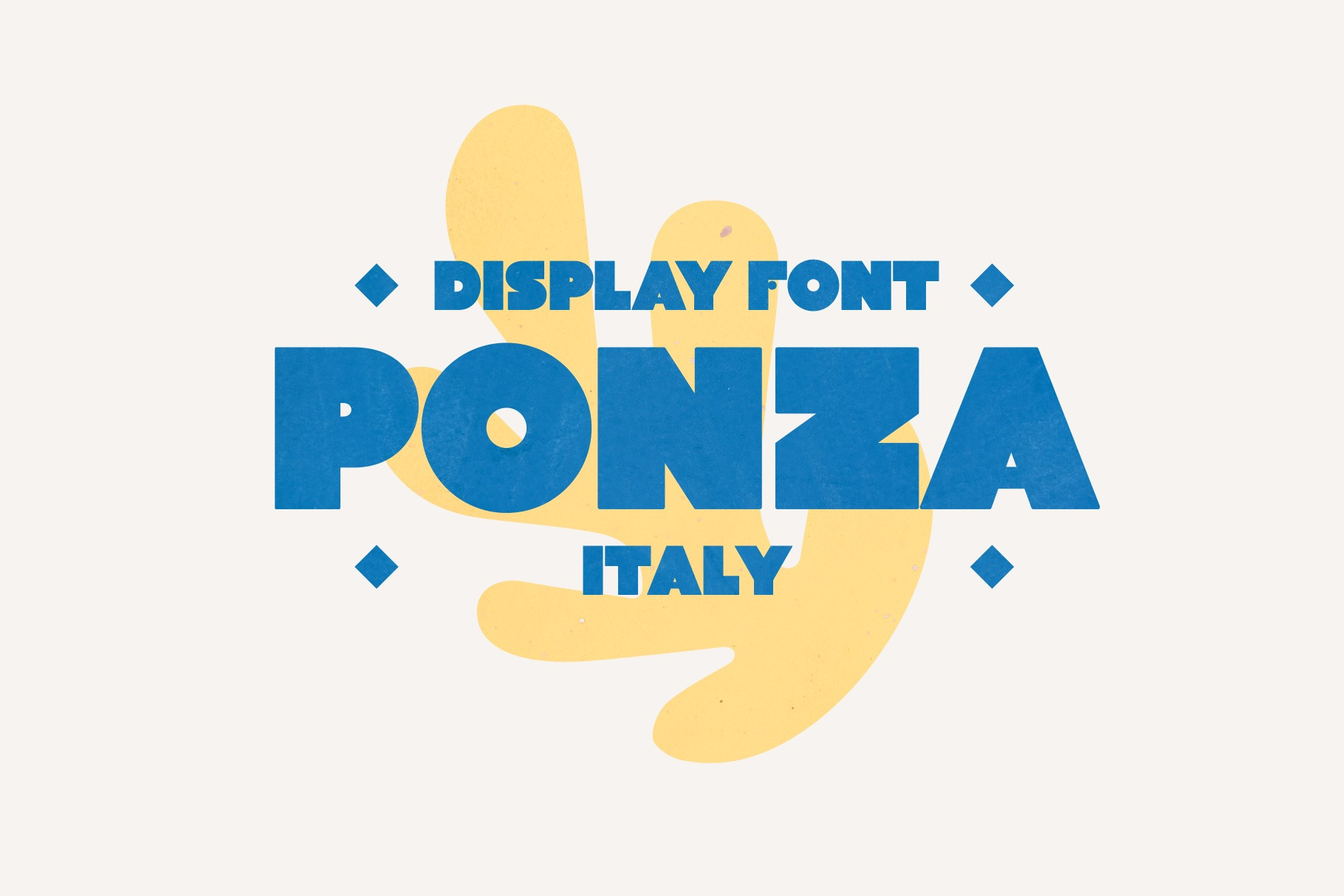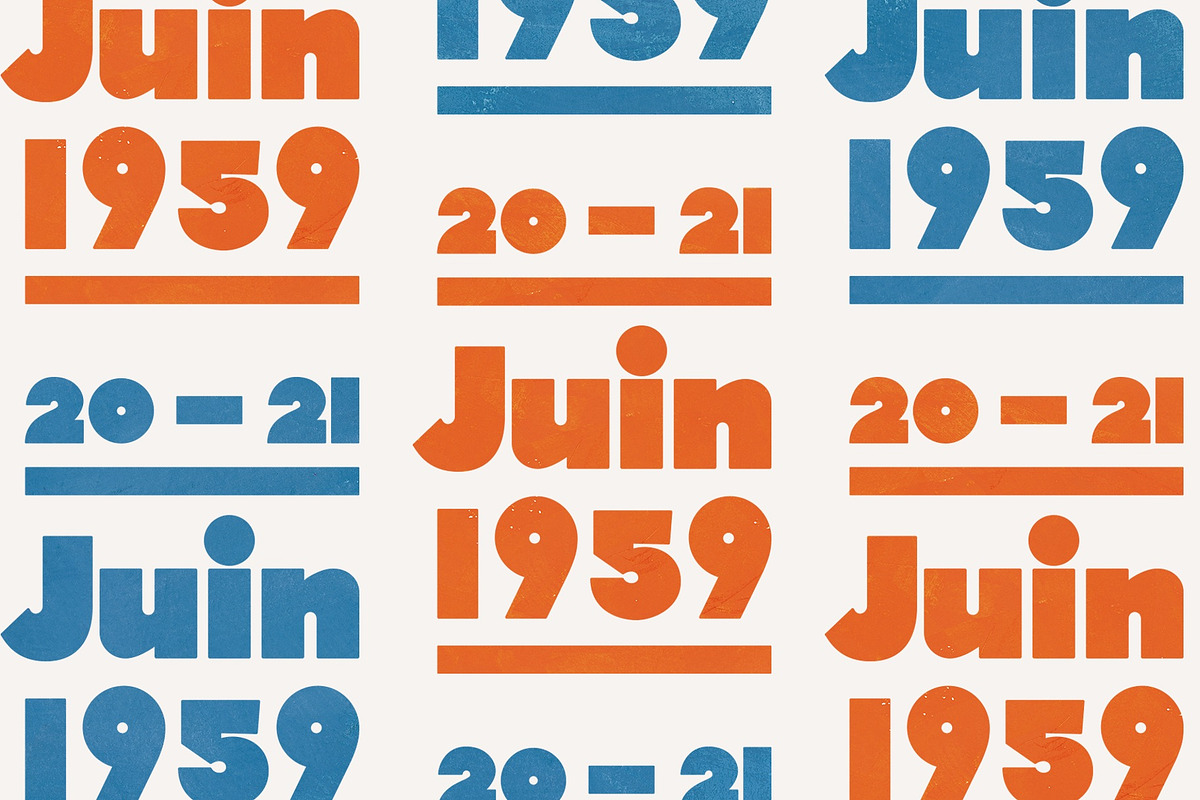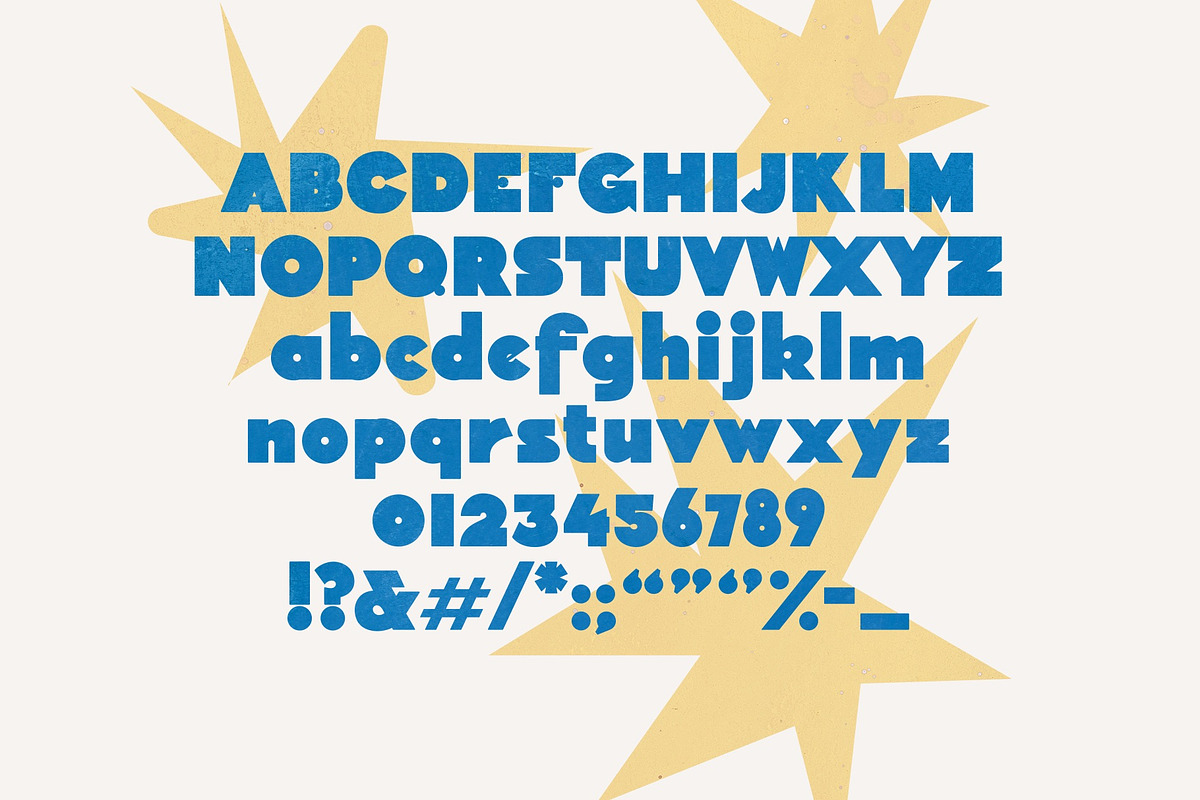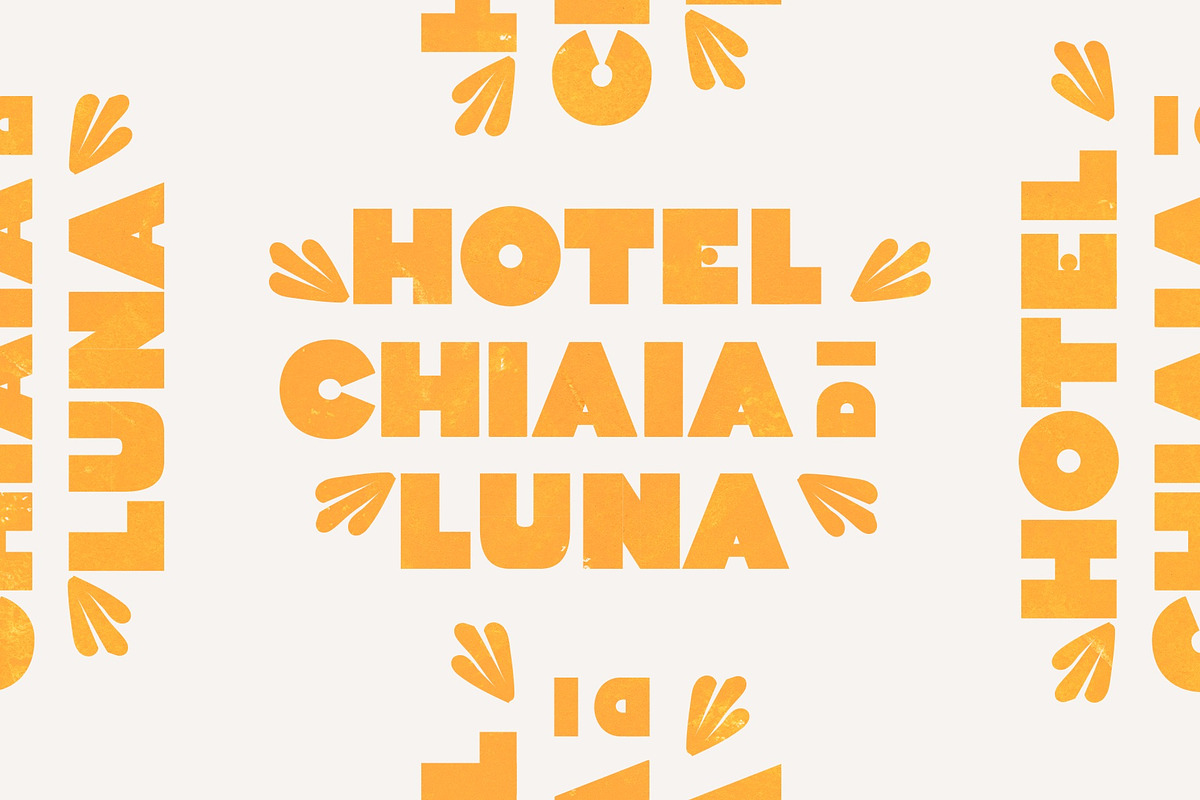
PONZA Display Font
PONZA | A bold display face enriched in the culture of Southern Europe and Italy. Add a relaxed and authentic European feel to your designs. PONZA is reminiscent of vintage hand-crafted signage, so the font embraces its imperfections and quirks.
The typeface is one bold weight, and comes with a full alphabetical and numerical set. Currently PONZA only has a few punctuation glyphs.